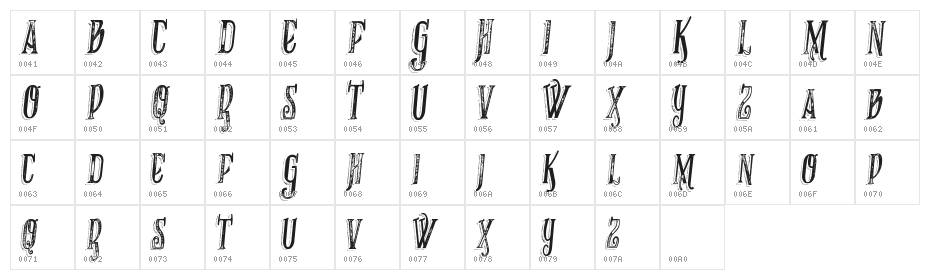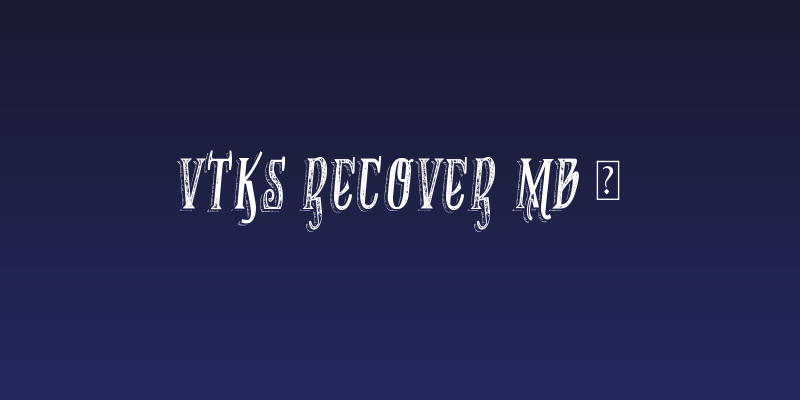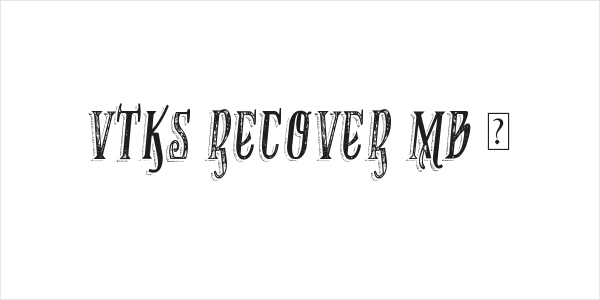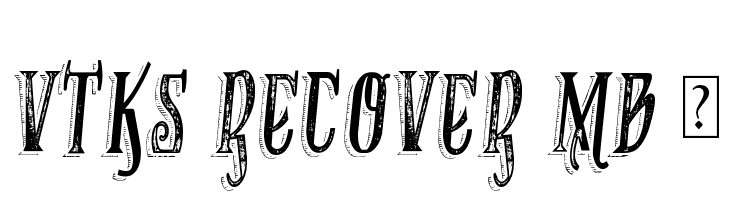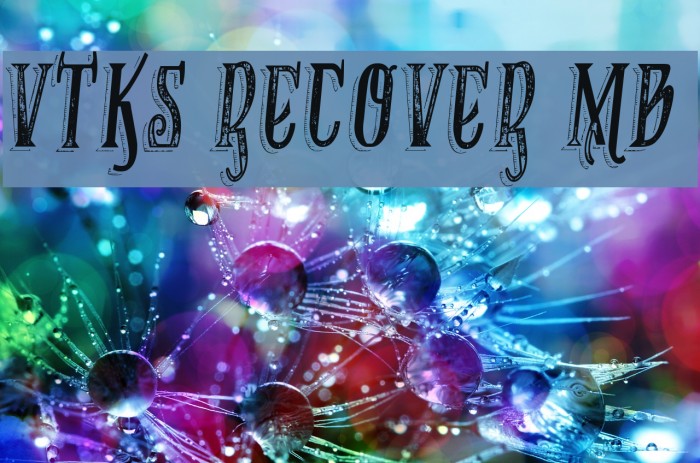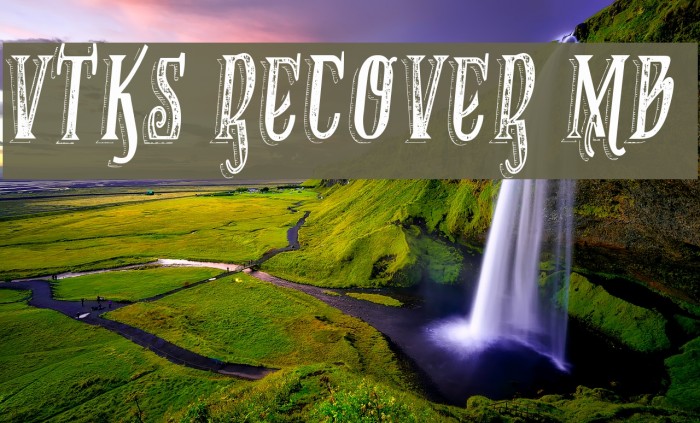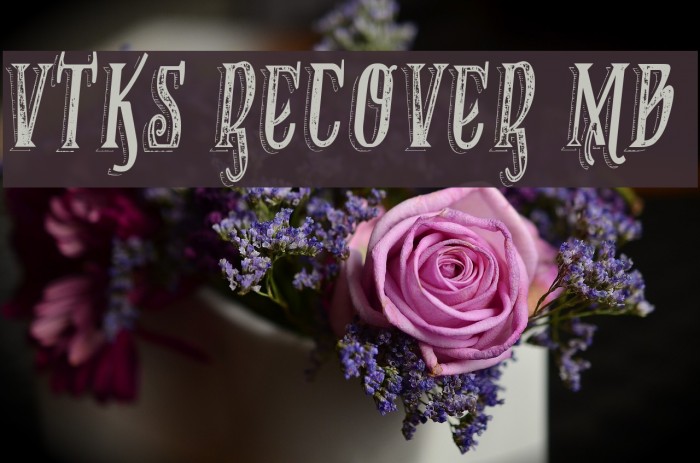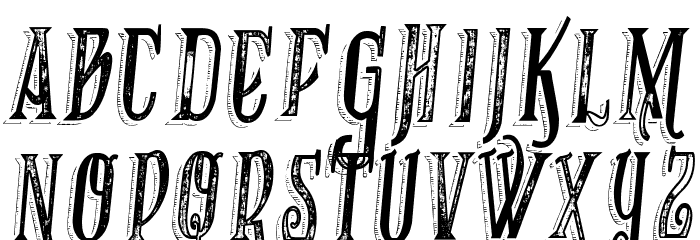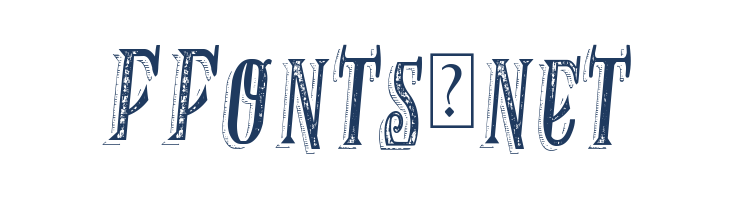
VTKS RECOVER MB 1 Font
This font features a bold and decorative style with intricate detailing within each character. The uppercase letters are particularly striking, with a mix of thick and thin strokes that create a dynamic and eye-catching appearance. The lowercase letters maintain the same decorative flair, ensuring consistency throughout the typeface. The font's unique design elements, such as the ornate embellishments and varying line weights, give it a vintage and artistic feel. It is well-suited for projects that require a standout display font, such as posters, album covers, or branding materials that aim to capture attention and convey a sense of creativity and uniqueness.
| Overall Style | Vintage, Decorative |
| Proposed Projects | Ideal for posters, album covers, branding materials, and any project needing a standout display font. |